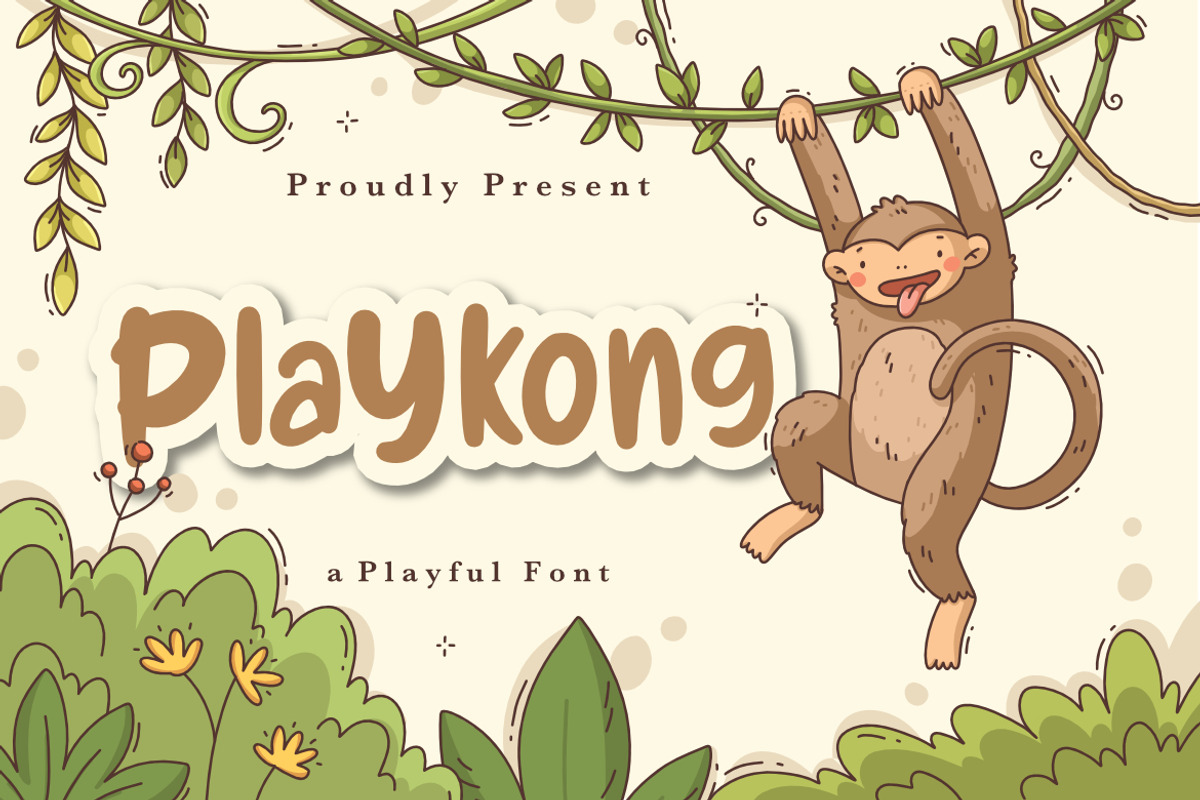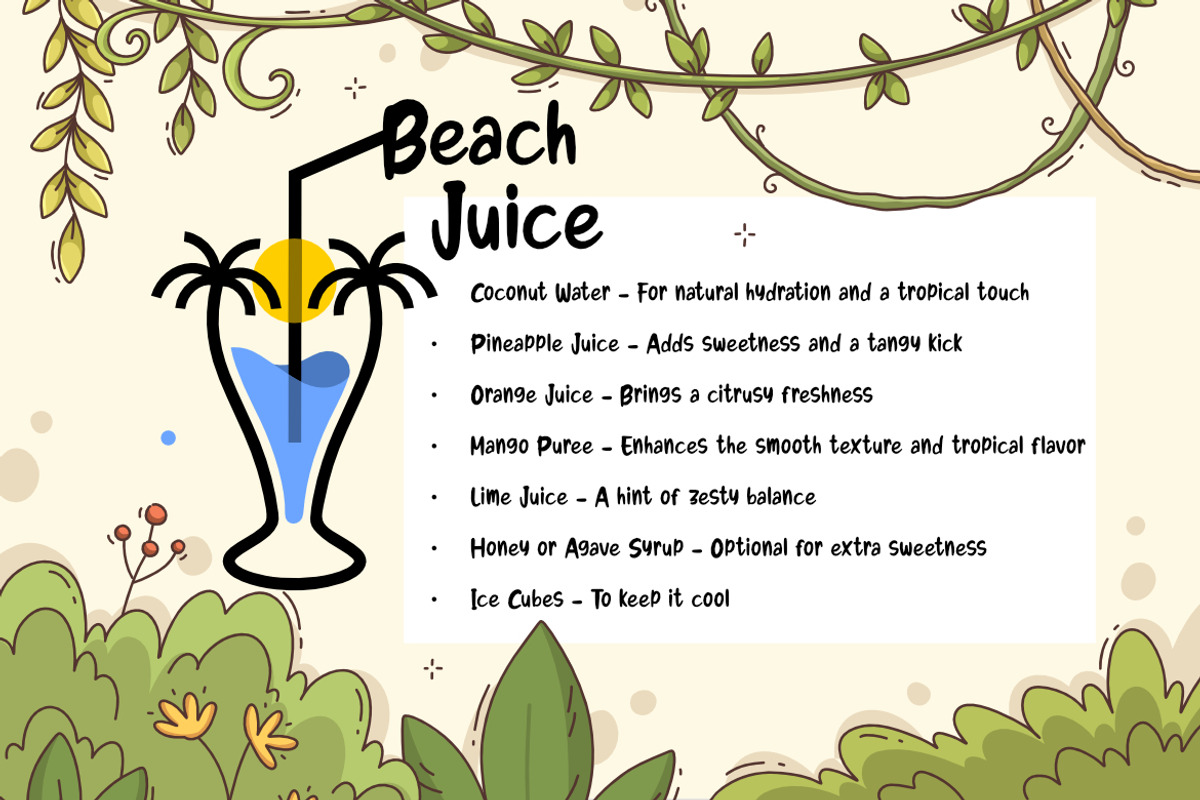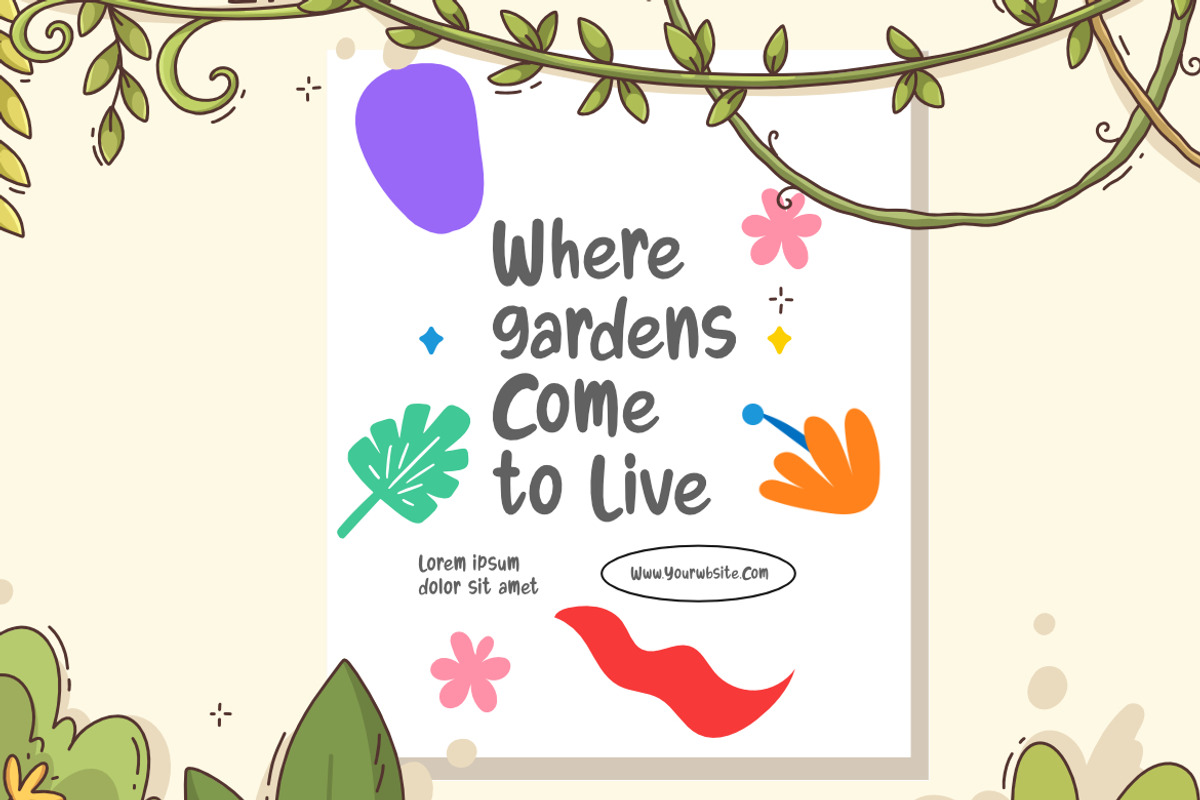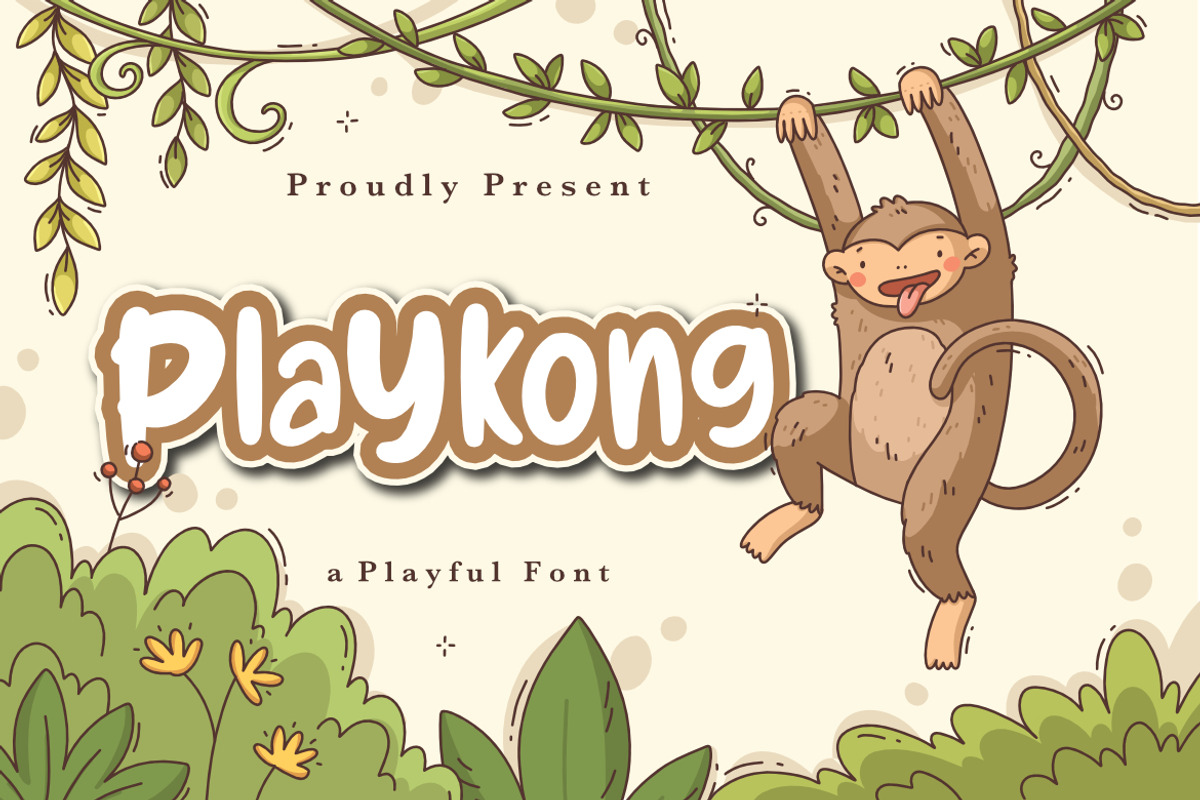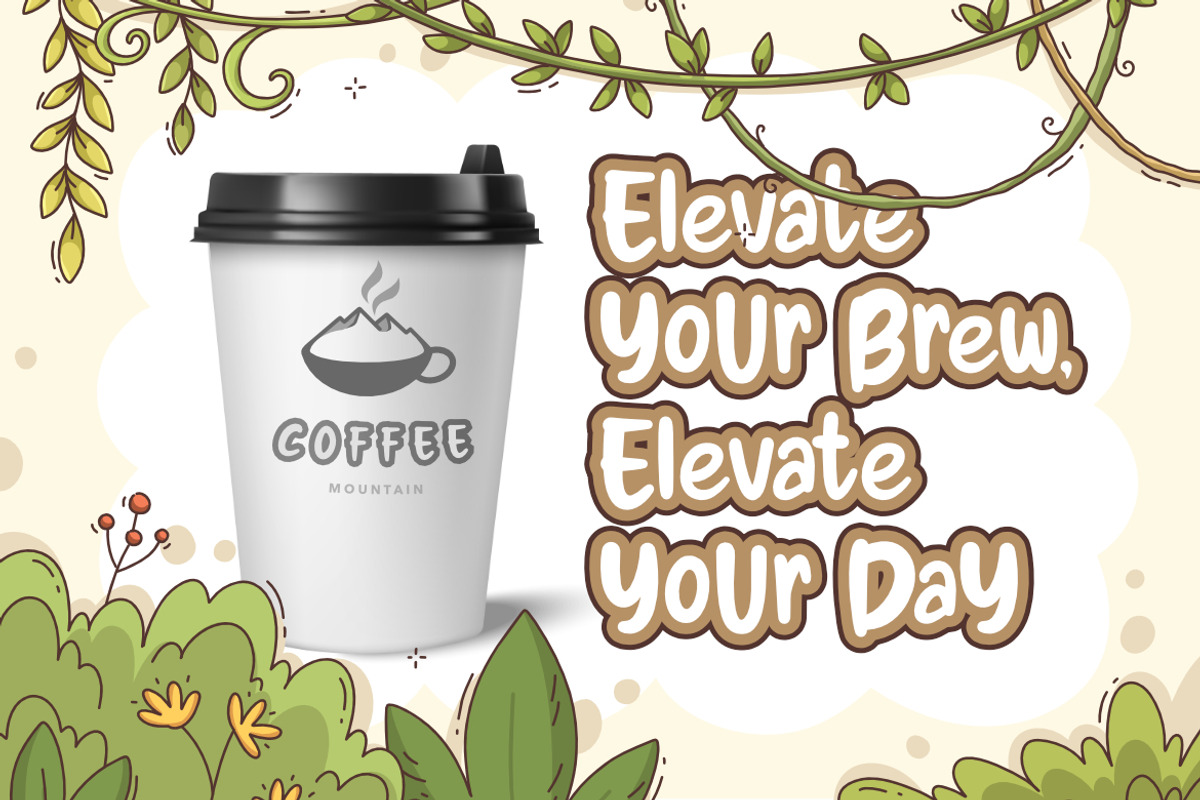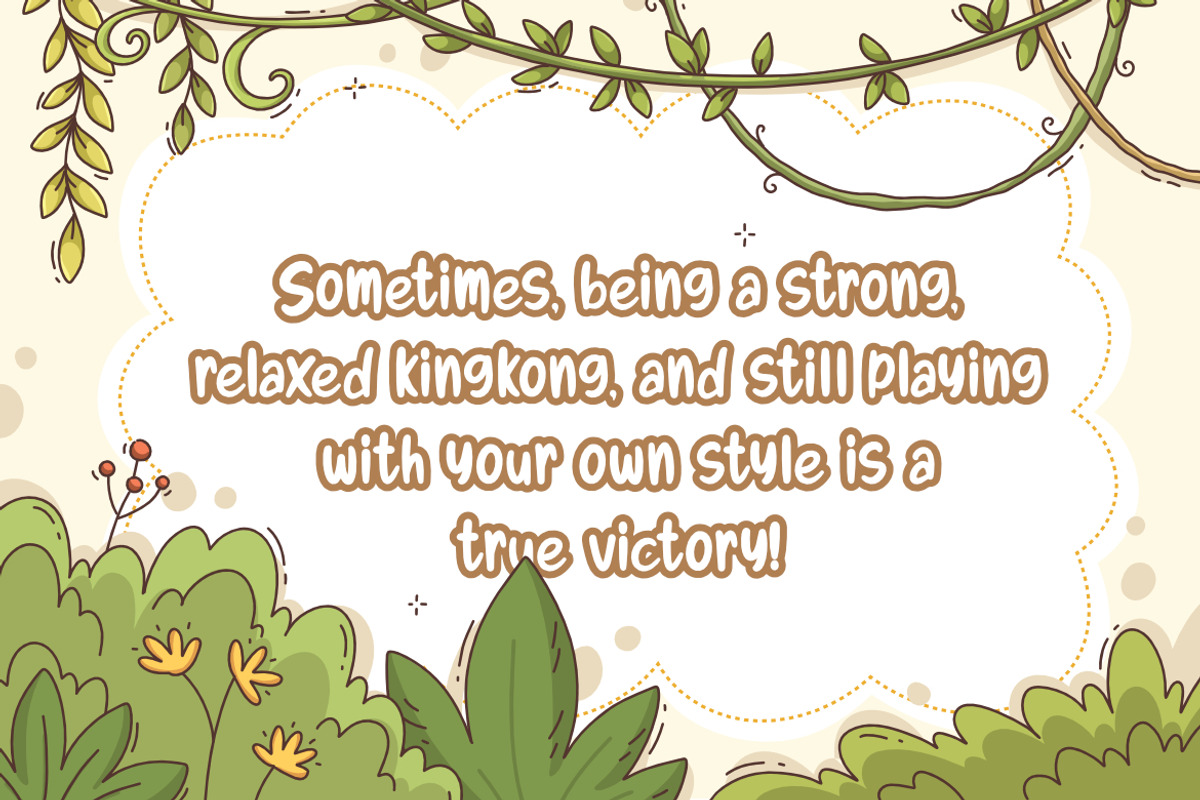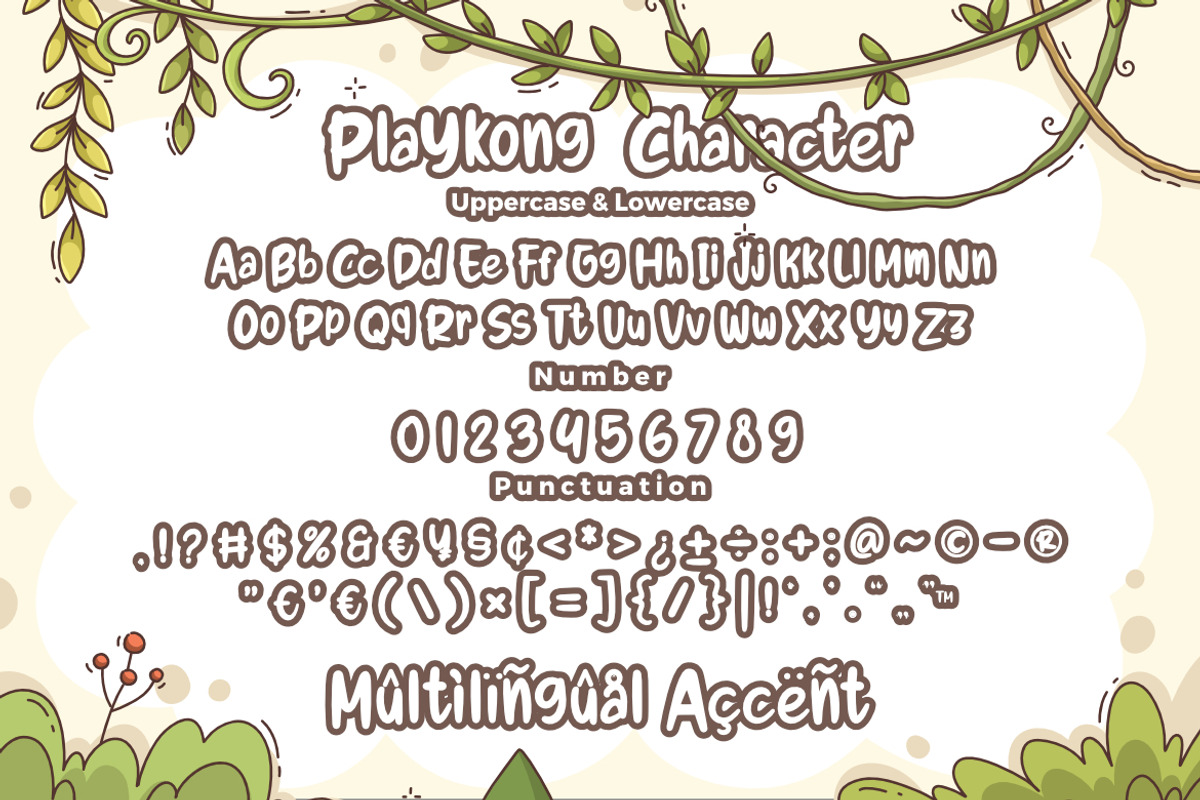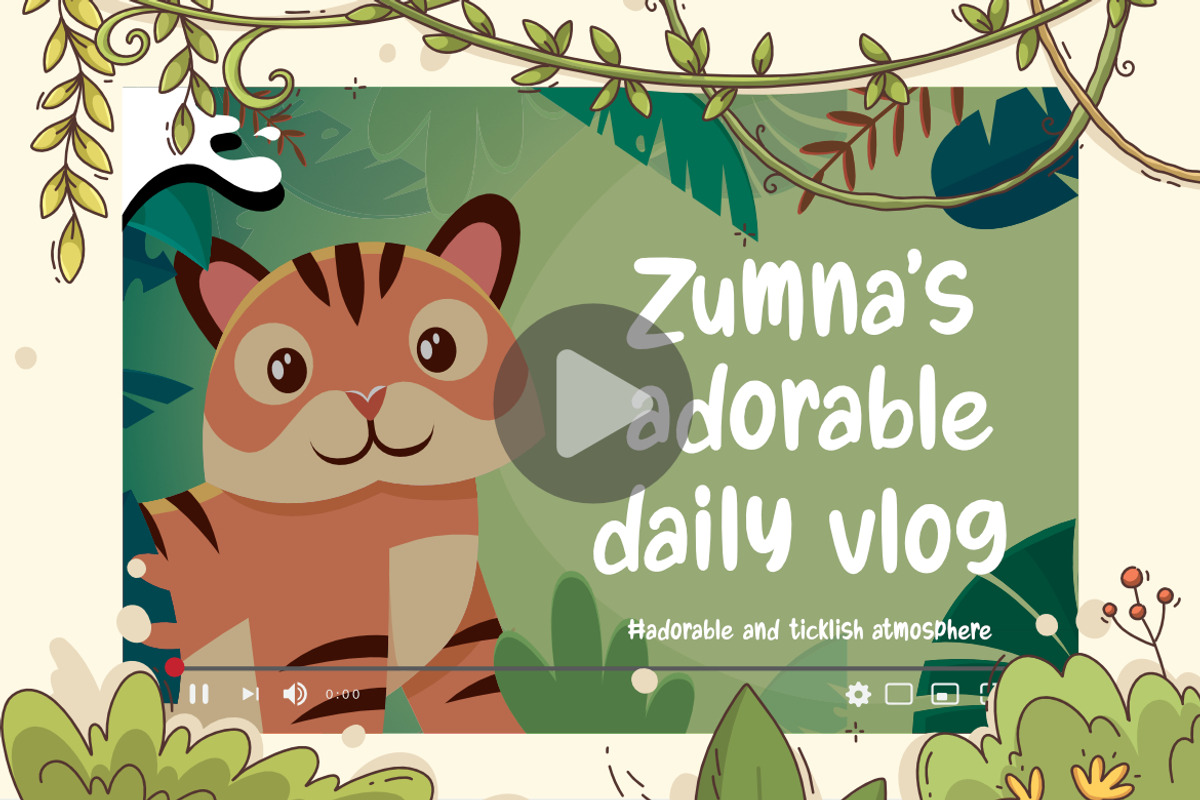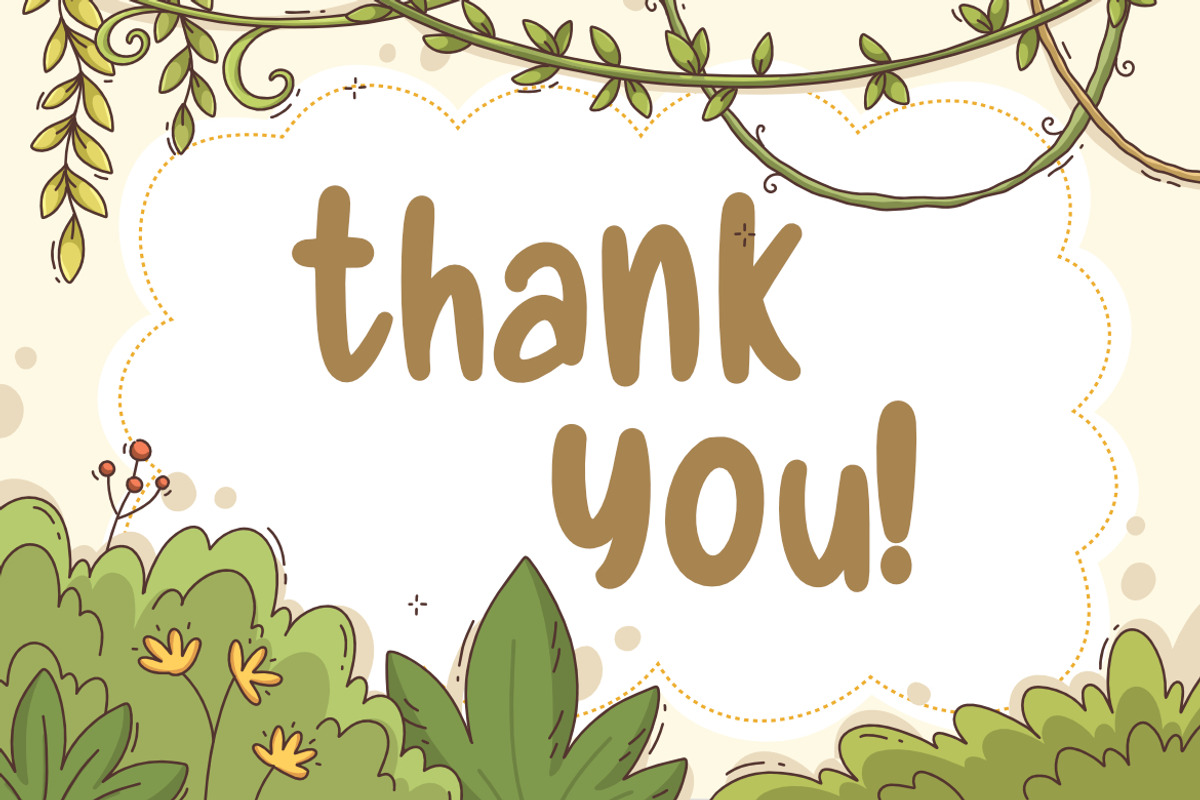
Playkong a Playful Font
Playkong a Playful Font, This font is made with a high premium quality level which you can use as flyers, quotes, posters, banners, packaging, merchandise, logotypes and much more.